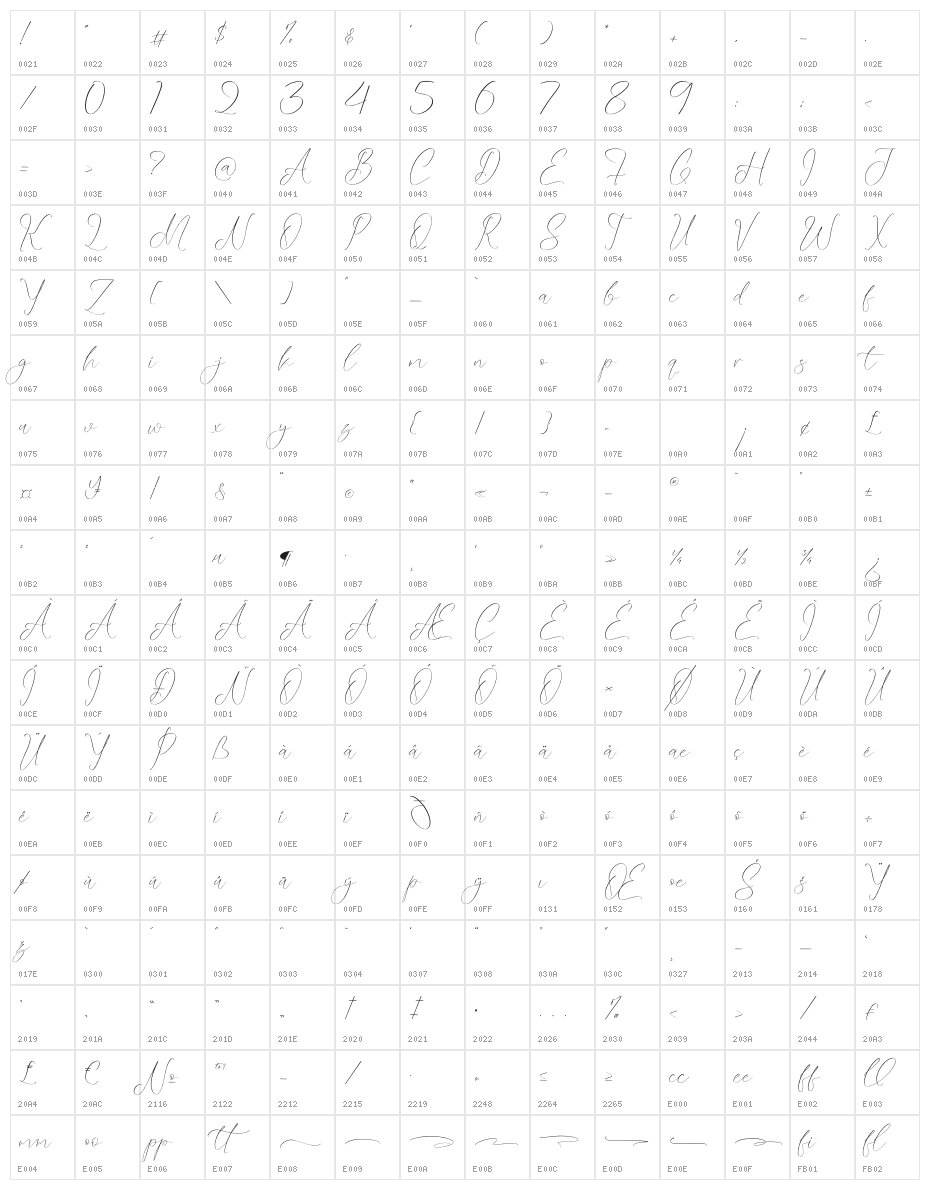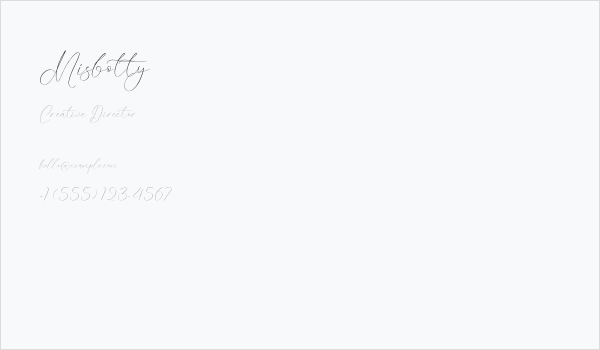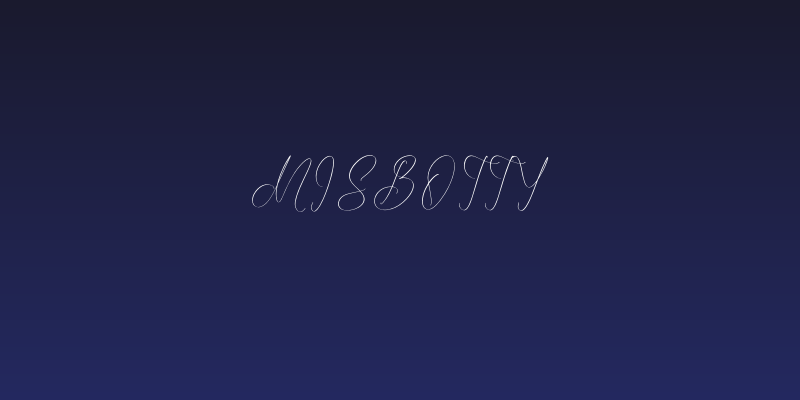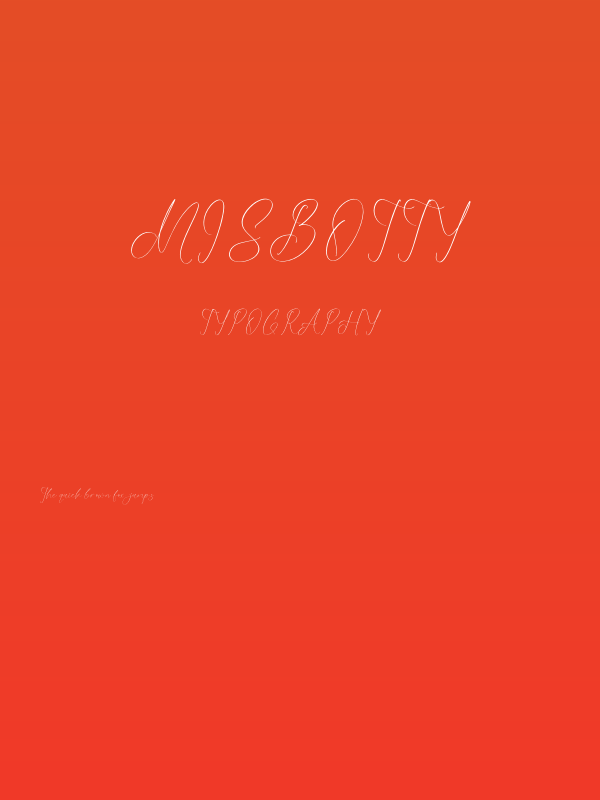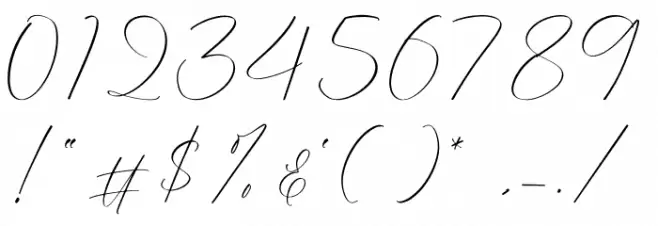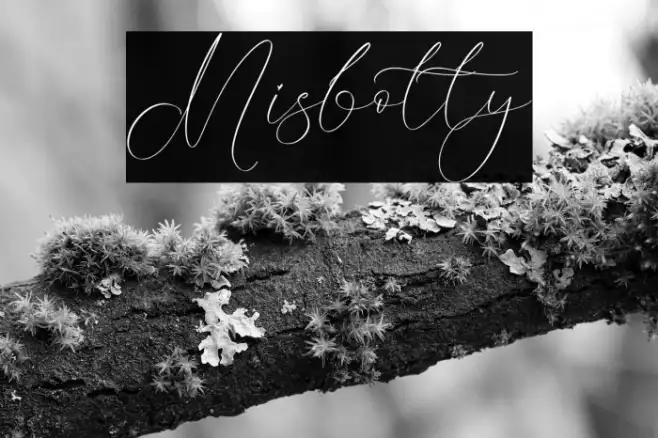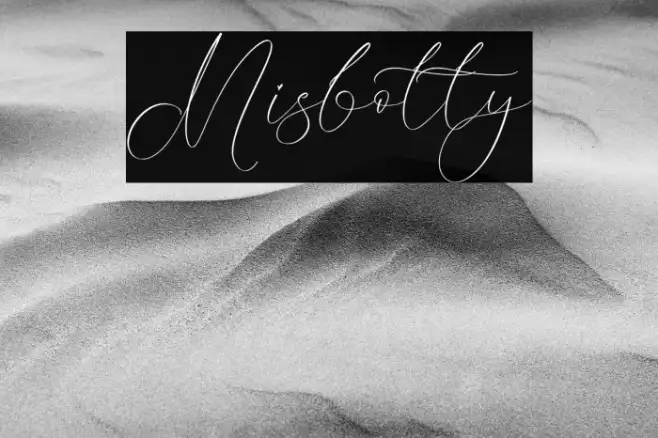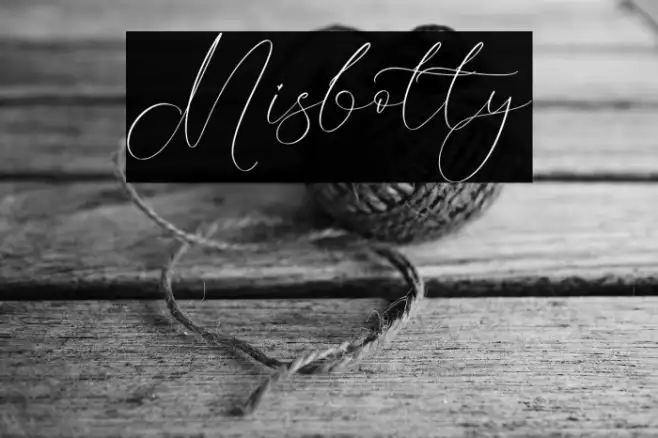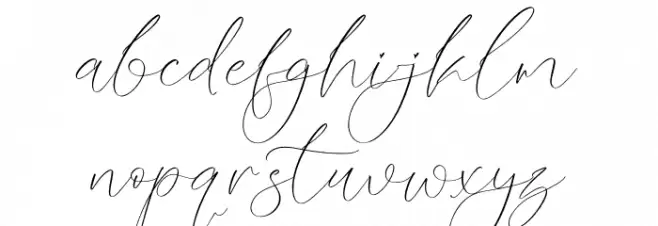
Misbotty Font
Misbotty Description
This elegant script font features flowing, interconnected letters that mimic the fluidity of natural handwriting. The characters are delicately crafted with thin strokes, giving it a refined and sophisticated appearance. The uppercase letters are slightly more ornate, with graceful loops and curves, while the lowercase letters maintain a consistent, smooth flow. The numerals and special characters are designed to complement the overall style, ensuring a cohesive look across all text. This font exudes a sense of elegance and charm, making it ideal for projects that require a touch of class and personalization.
| Use Case | Invitations, Branding, Stationery |
| Proposed Projects | Ideal for wedding invitations, elegant branding, personal stationery, and high-end product packaging. |